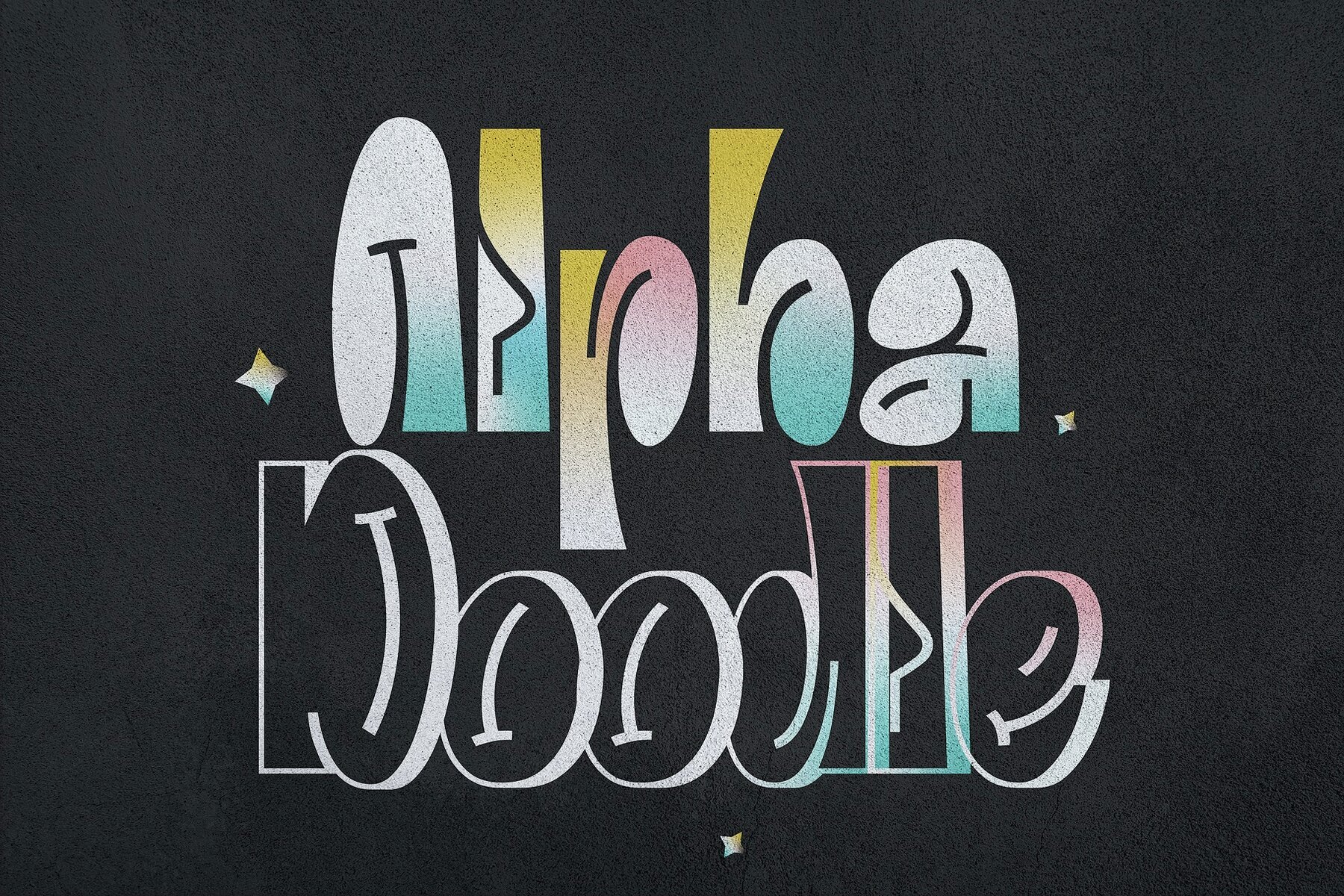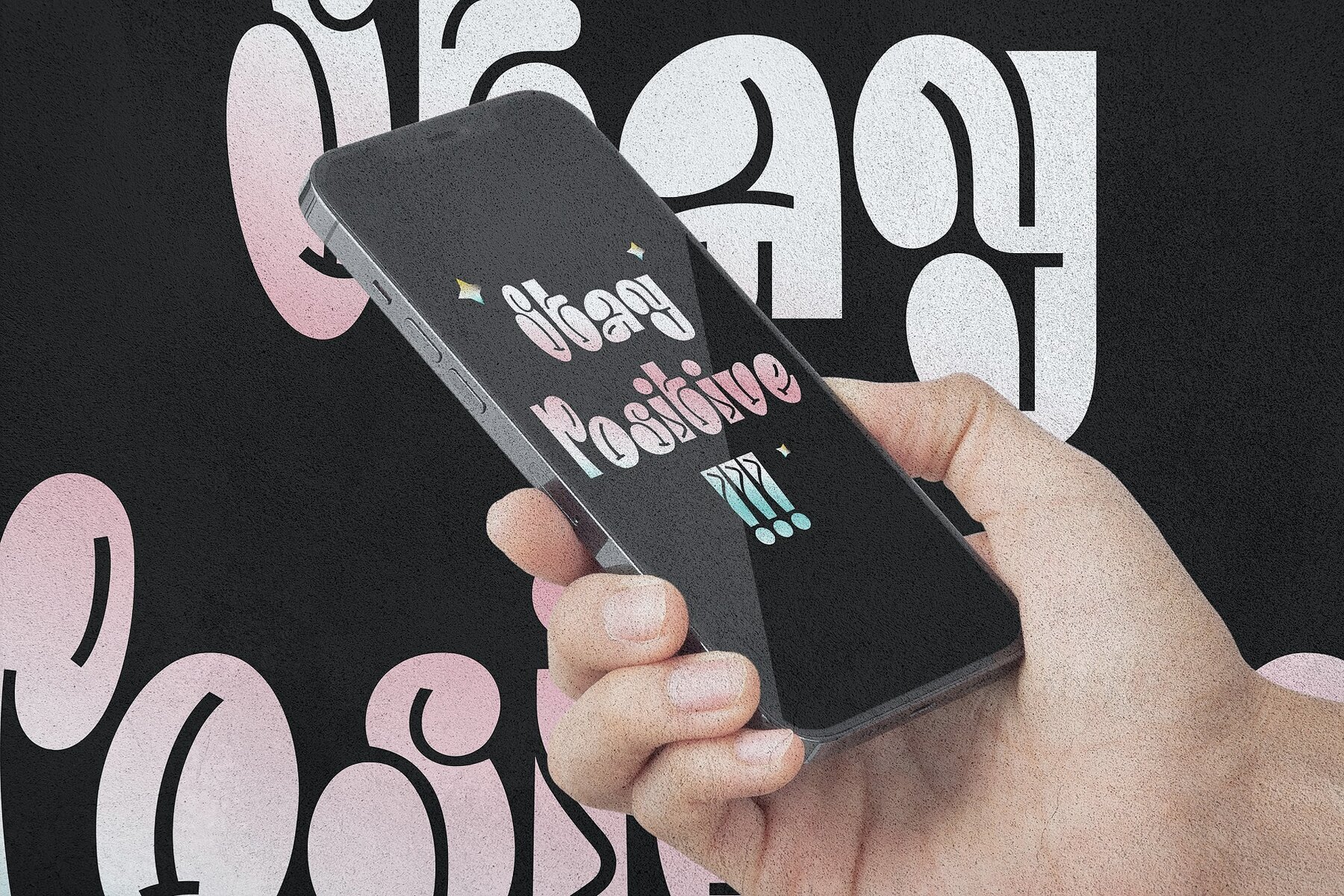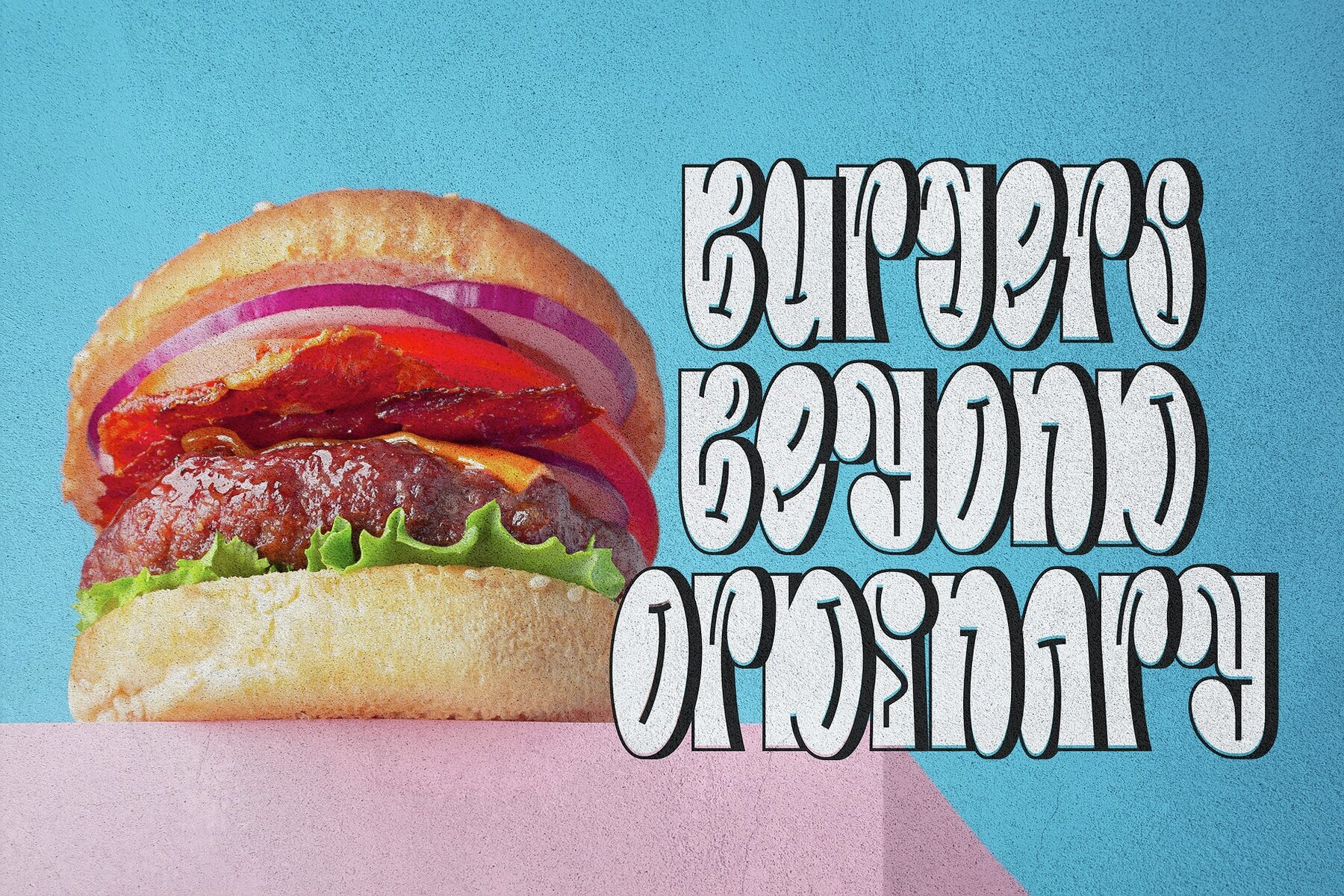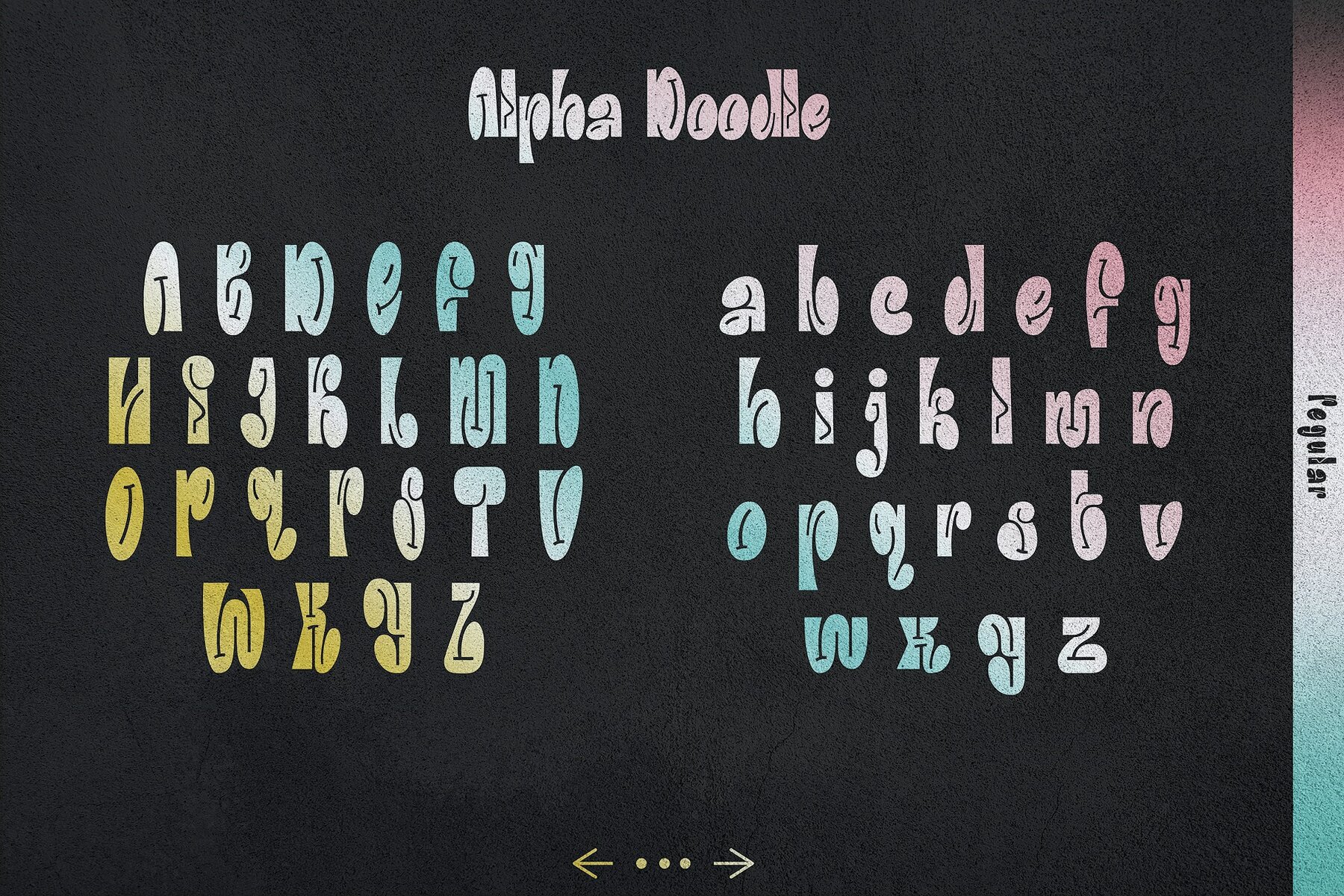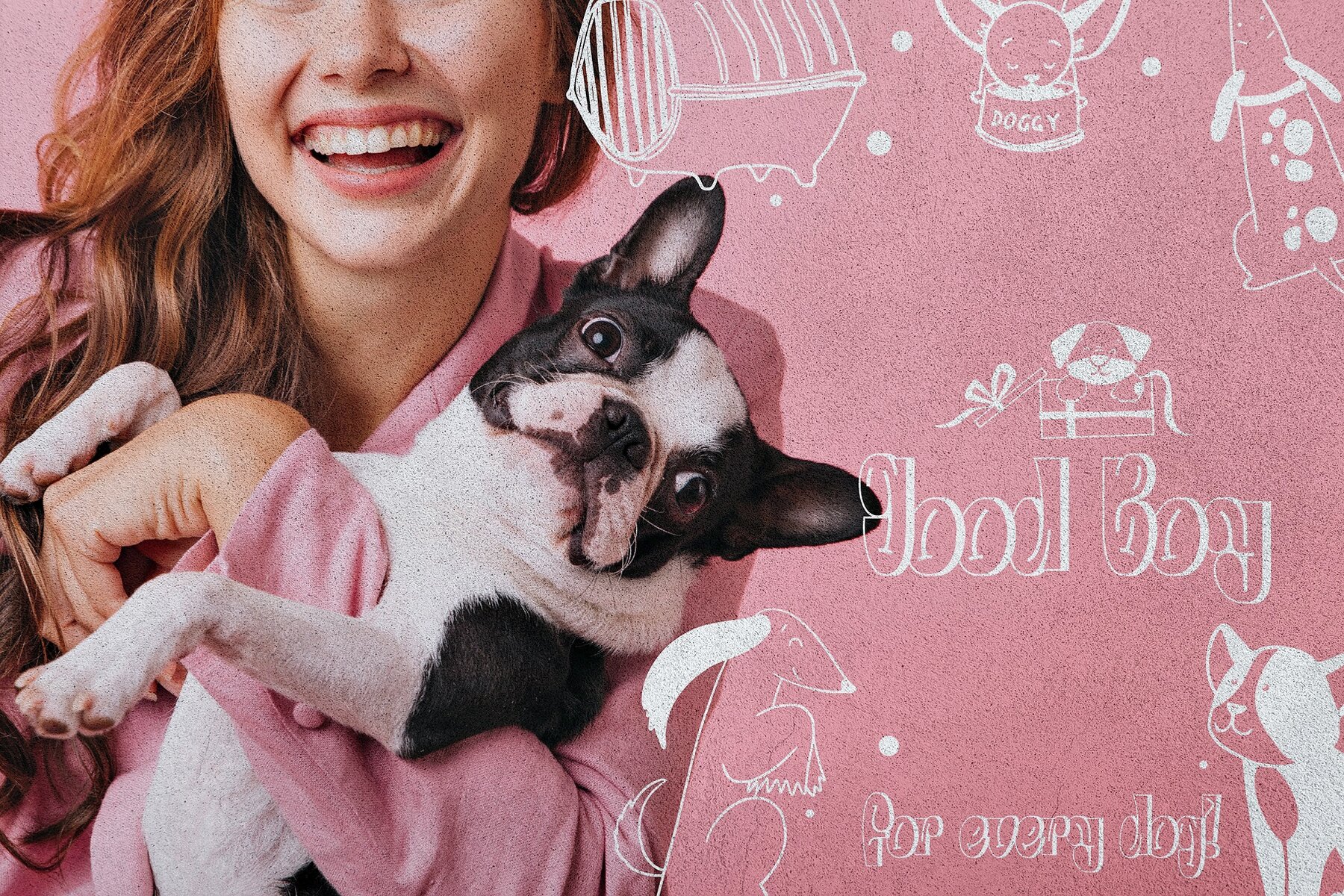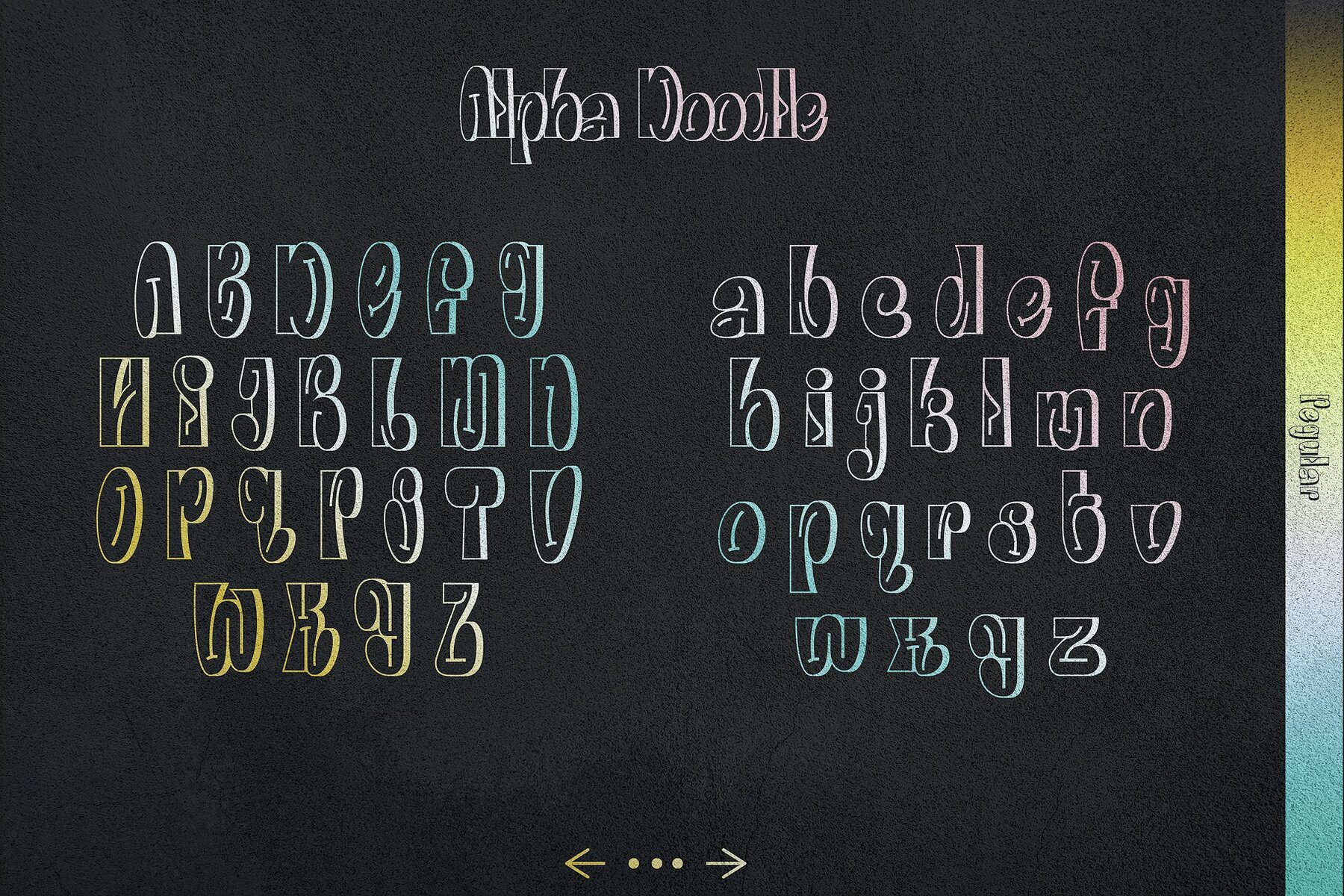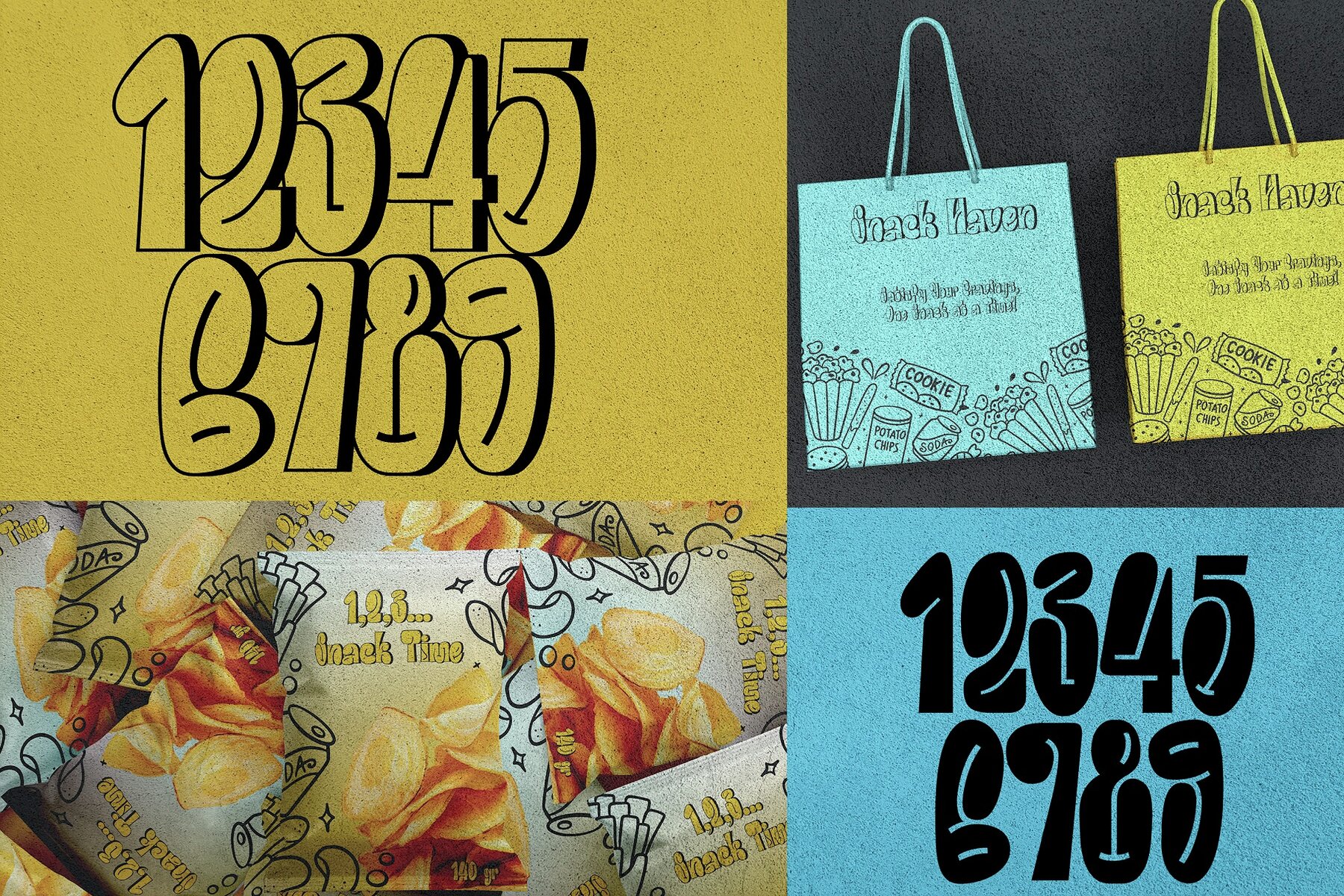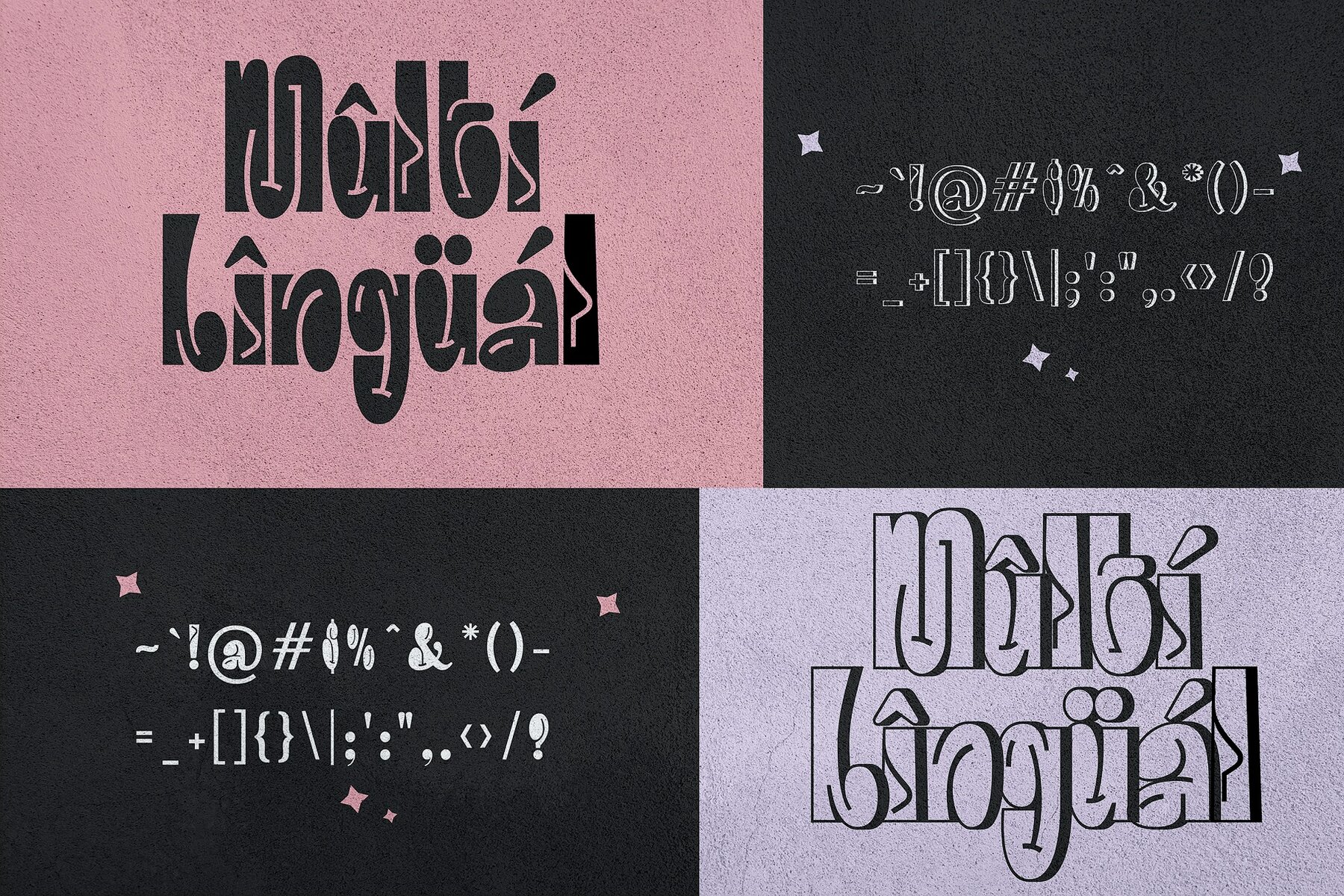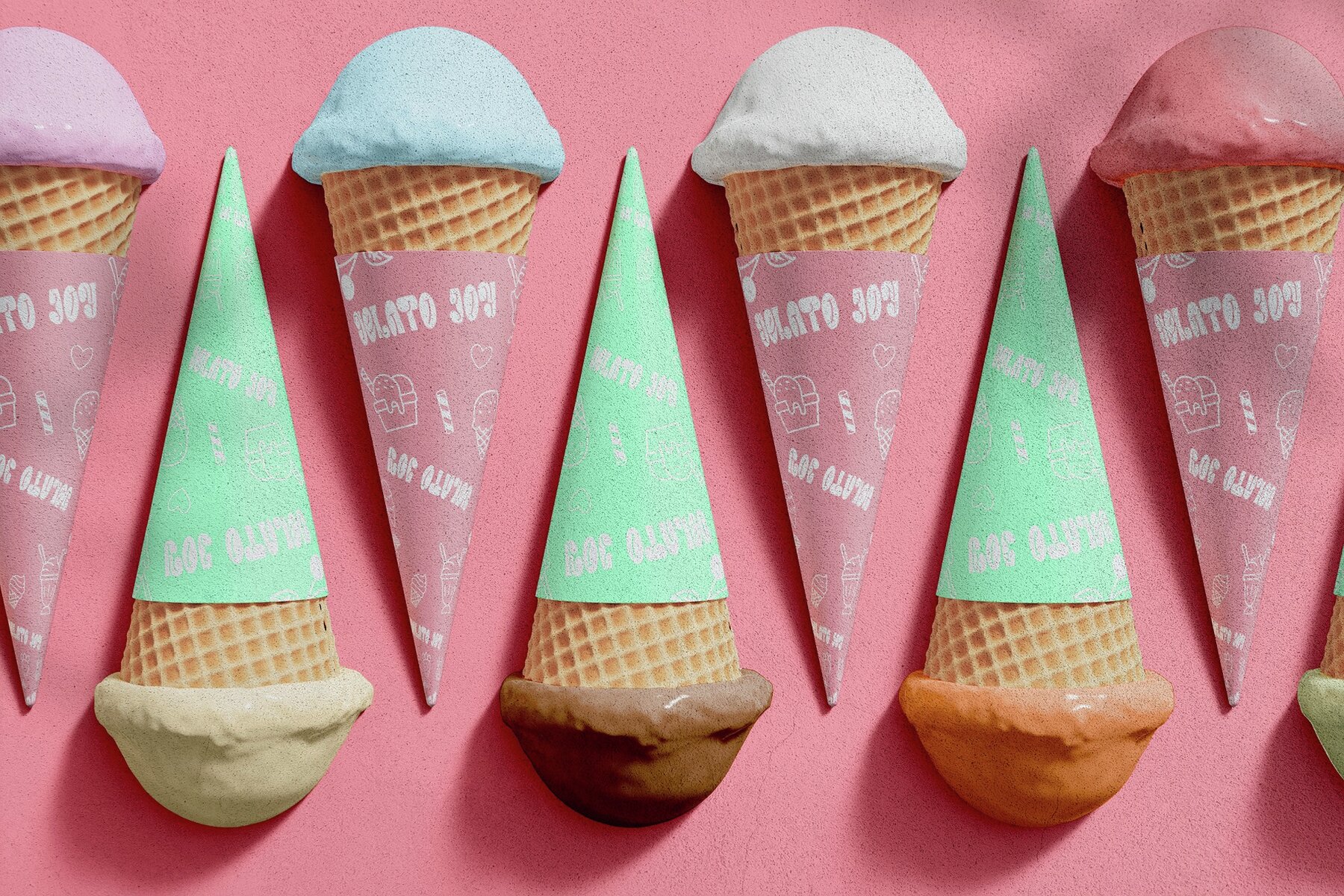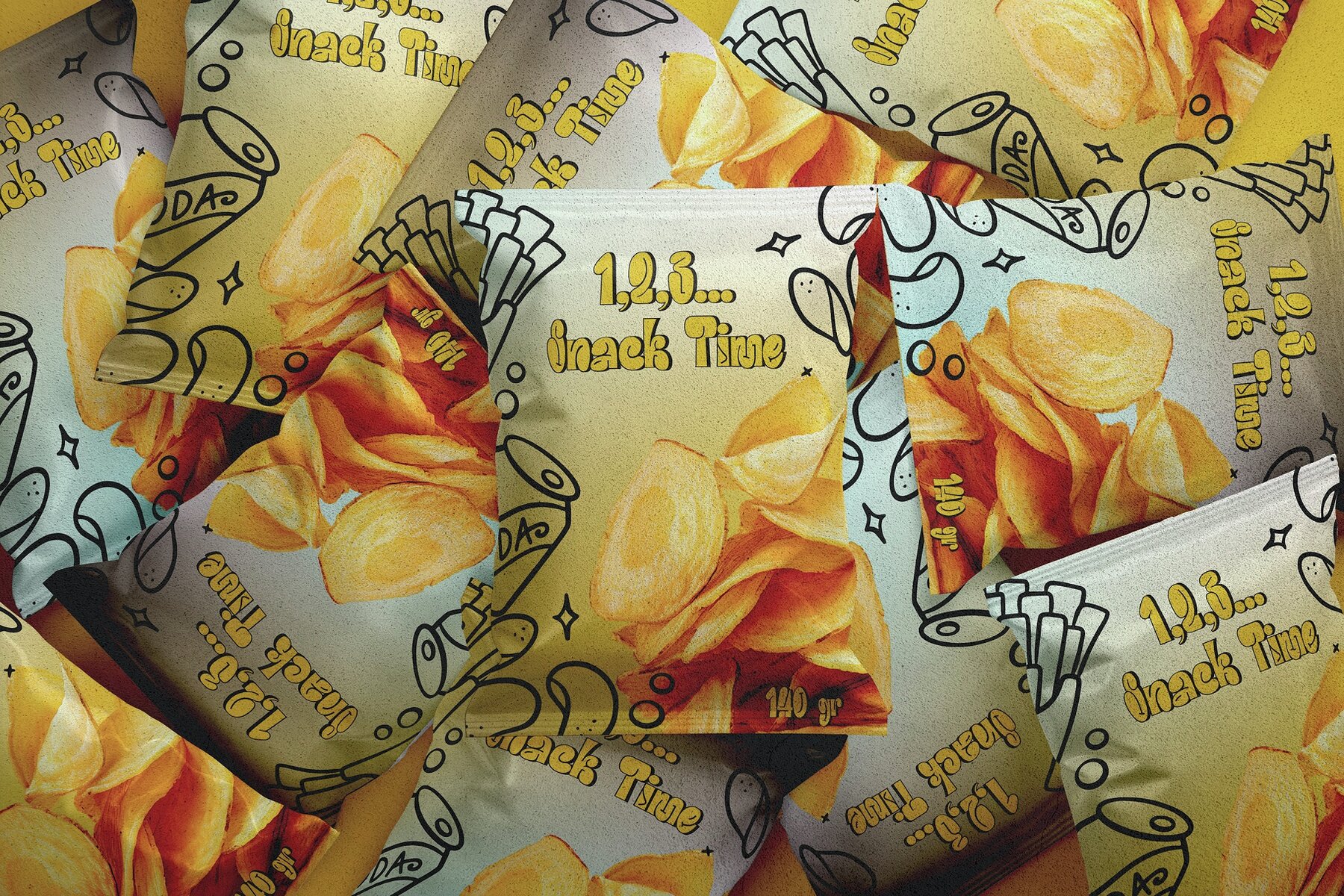
Alpha Doodle Font
Dive into the vibrant world of Alpha Doodle, a typeface that’s as fun and energetic as it is timeless and classic. This unique serif font, inspired by the spontaneous art of graffiti, brings an exciting twist to traditional typography, making it perfect for projects that demand both creativity and a touch of sophistication. With its playful charm and graffiti-influenced style, Alpha Doodle is a delightful choice for kid-related products and designs, infusing them with joy and a sense of adventure. Alpha Doodle is more than just a font; it’s a fusion of artistic expression and childlike wonder. Its characters, bursting with personality, are designed to capture the imagination and bring a smile to anyone who sees them. The graffiti-inspired elements add an urban, edgy vibe, while the serif foundation maintains a classic readability and structure. Whether you’re designing for educational purposes, children’s apparel, fun branding projects, or whimsical book covers, Alpha Doodle adapts seamlessly, ensuring your designs are not only eye-catching but also heartwarming and engaging. Every stroke in Alpha Doodle is crafted to convey a sense of freedom and creativity, making it an ideal choice for designers who want to make a bold statement. The font is versatile enough to work well in both digital and print mediums, from playful websites and interactive apps to colorful posters and packaging. Embrace the playful spirit of Alpha Doodle in your next project and watch as it transforms ordinary designs into extraordinary experiences, filled with color, life, and imagination.